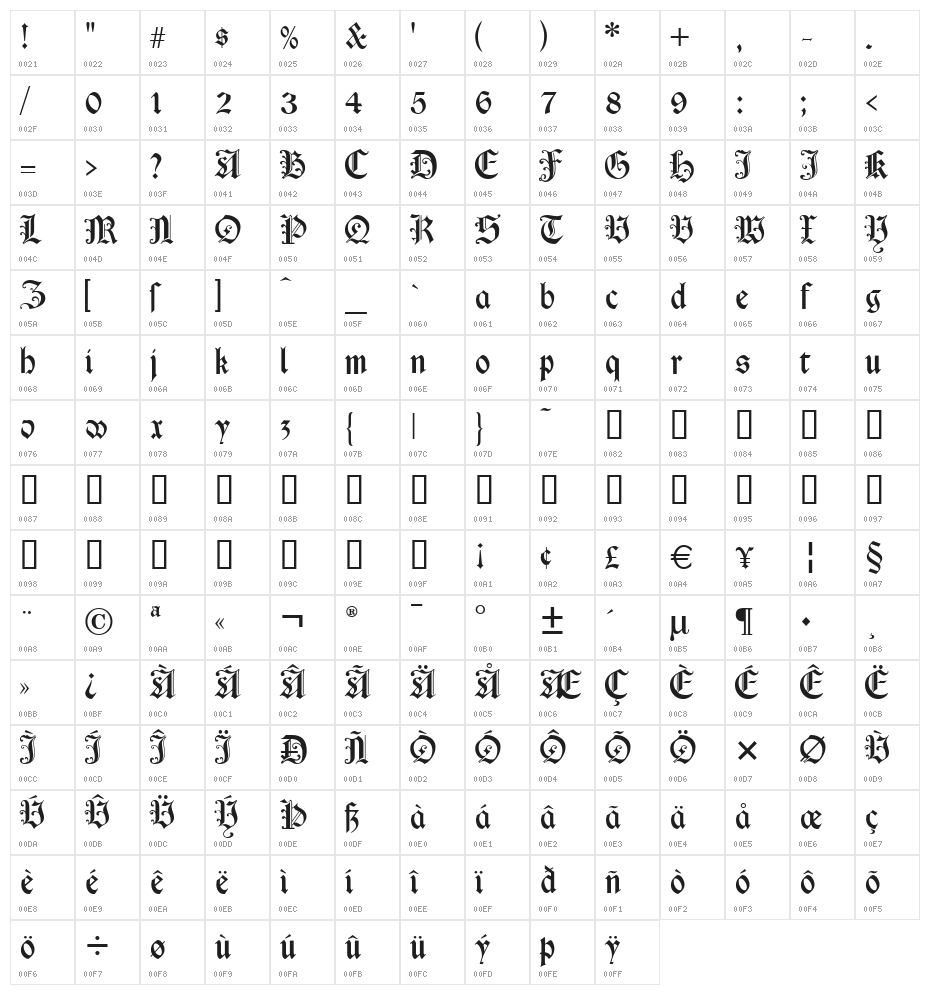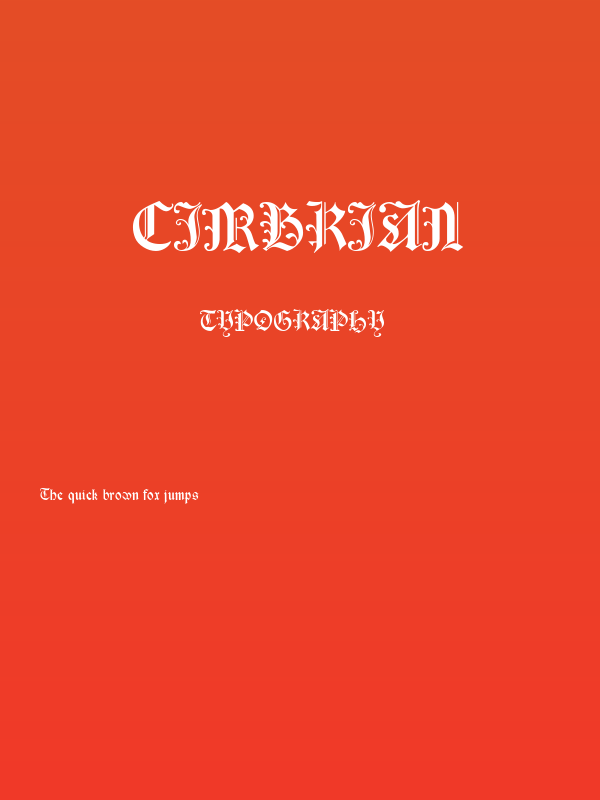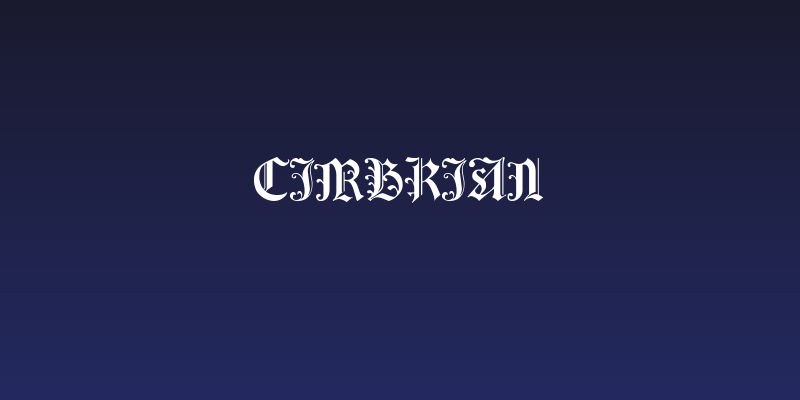
Cimbrian Font
| श्रेणियाँ | Gothic |
| कंट्रास्ट | High |
| समग्र शैली | Classic |
| उपयोग का मामला | Headlines, Logos, Decorative text |
| सुझाए गए प्रोजेक्ट | Ideal for wedding invitations, historical documents, gothic-themed posters, and branding that requires a traditional touch. |